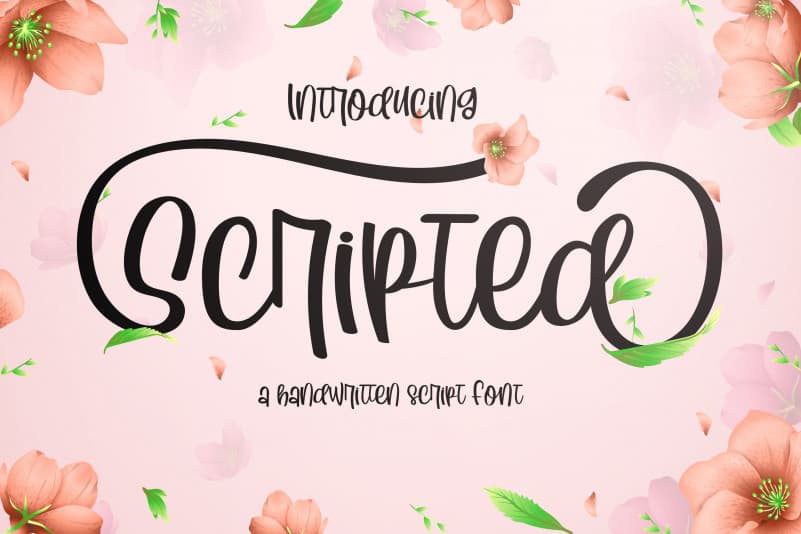
Scripted Font, from Lettercorner Studio, was inspired by the beautiful Galapagos Island, where you’ll find beauty and serenity. This luxurious font is perfect for; brand identity, logos, apparel, headlines, magazines, posters, quotes, product packaging, and so much more. Galapagos is a great stand alone font but can easily pair with another.